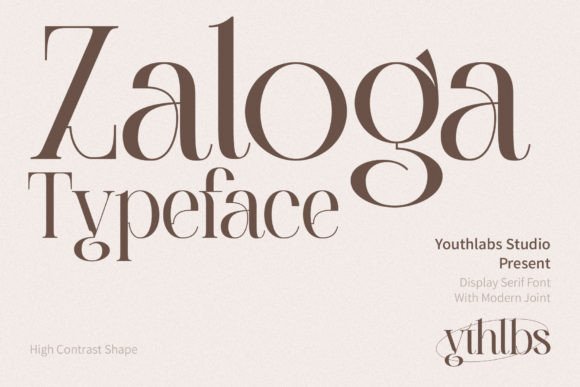
Dive into the world of sophistication and elegance with the captivating Zaloga Font, a masterpiece crafted to elevate your designs to new heights. This display font, meticulously designed by the talented artists at Youthlabs, strikes the perfect balance between delicate and bold, ensuring that your words will leave a lasting impression.
Zaloga's versatility knows no bounds. Whether you seek to craft an unforgettable logo that exudes luxury, or adorn your website with a touch of timeless charm, this font will seamlessly adapt to your vision. Its meticulously crafted curves and sharp angles create a symphony of visual harmony, drawing the eye to your every word.
Imagine your brand adorned with the Zaloga Font, a beacon of sophistication that will set you apart from the ordinary. Your customers will be captivated by the effortless elegance of your designs, fostering a sense of trust and admiration that will drive your business to success.
Each letterform within the Zaloga Font is a work of art, carefully designed to evoke emotions and convey your message with impact. Its balanced proportions and varied strokes create a captivating rhythm that will dance across your designs, leaving an unforgettable mark on your audience.
Embrace the Zaloga Font today, and unlock a world of limitless possibilities. Let its timeless beauty elevate your designs, leaving a legacy of sophistication and elegance that will endure for years to come. With Zaloga as your design companion, your brand will radiate with an aura of distinction, captivating hearts and minds alike.